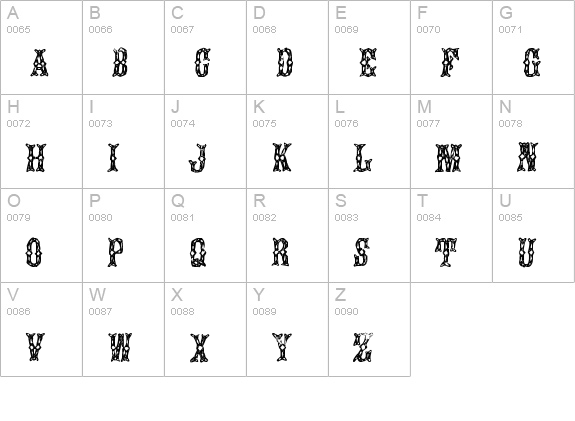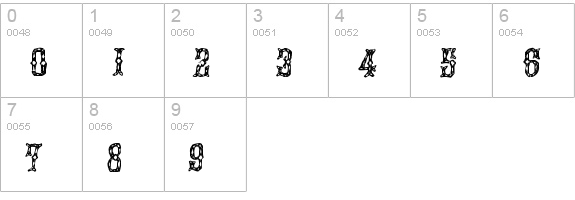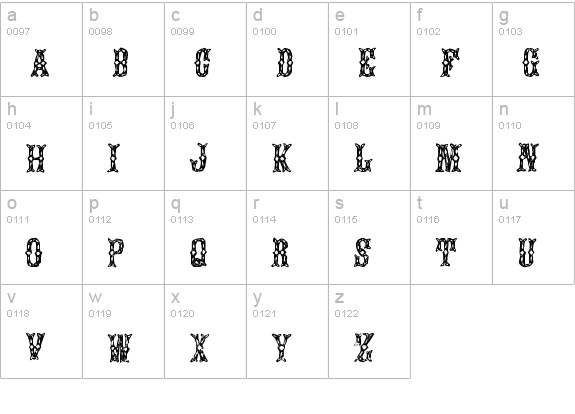
The Augustine font is a beautifully crafted typeface that exudes elegance and sophistication. With its classic yet modern design, Augustine is perfect for adding a touch of style to any project. This versatile font is ideal for a wide range of applications, from branding and logo design to invitations and packaging. What makes Augustine even more appealing is that it is available for free download at FontsMarket.com. This means that you can easily access this stunning font without any cost, making it a valuable addition to your font collection. Whether you are a designer looking for a new font to elevate your projects or an enthusiast seeking to enhance your creative endeavors, Augustine is a must-have font that will surely impress. Download Augustine now and experience the beauty and versatility of this captivating typeface.